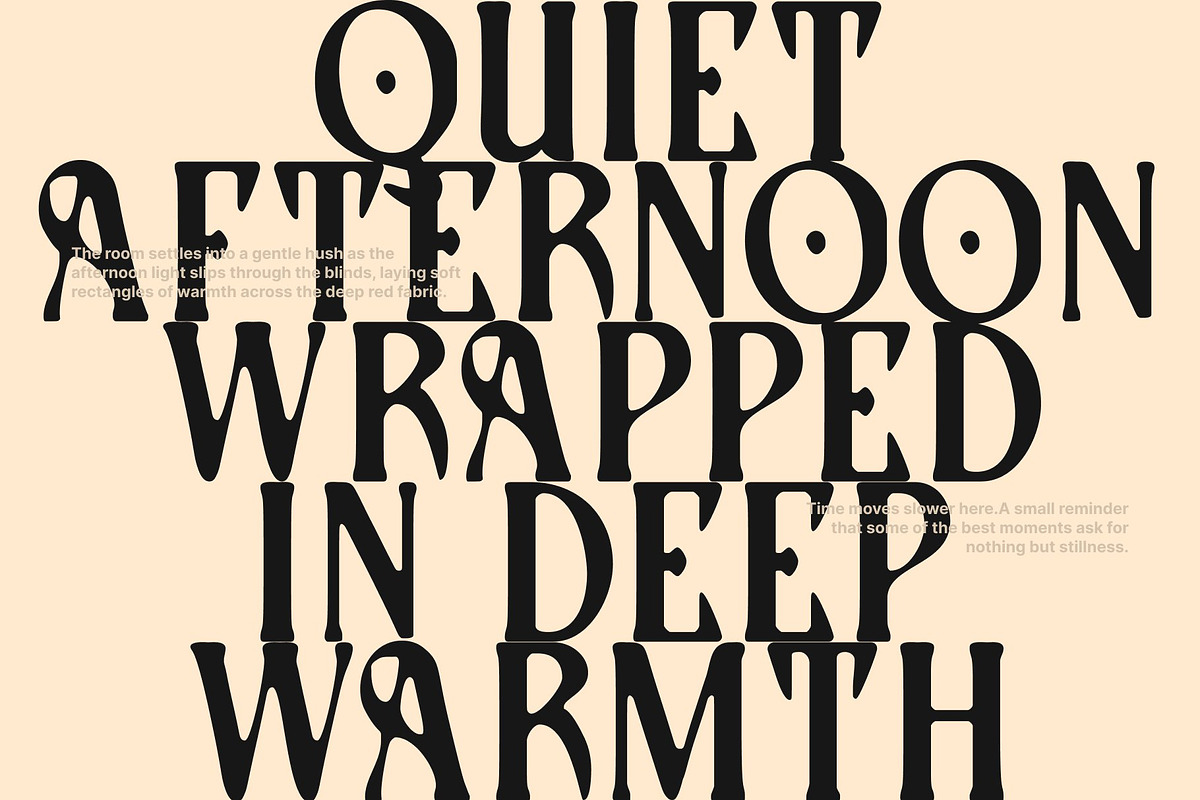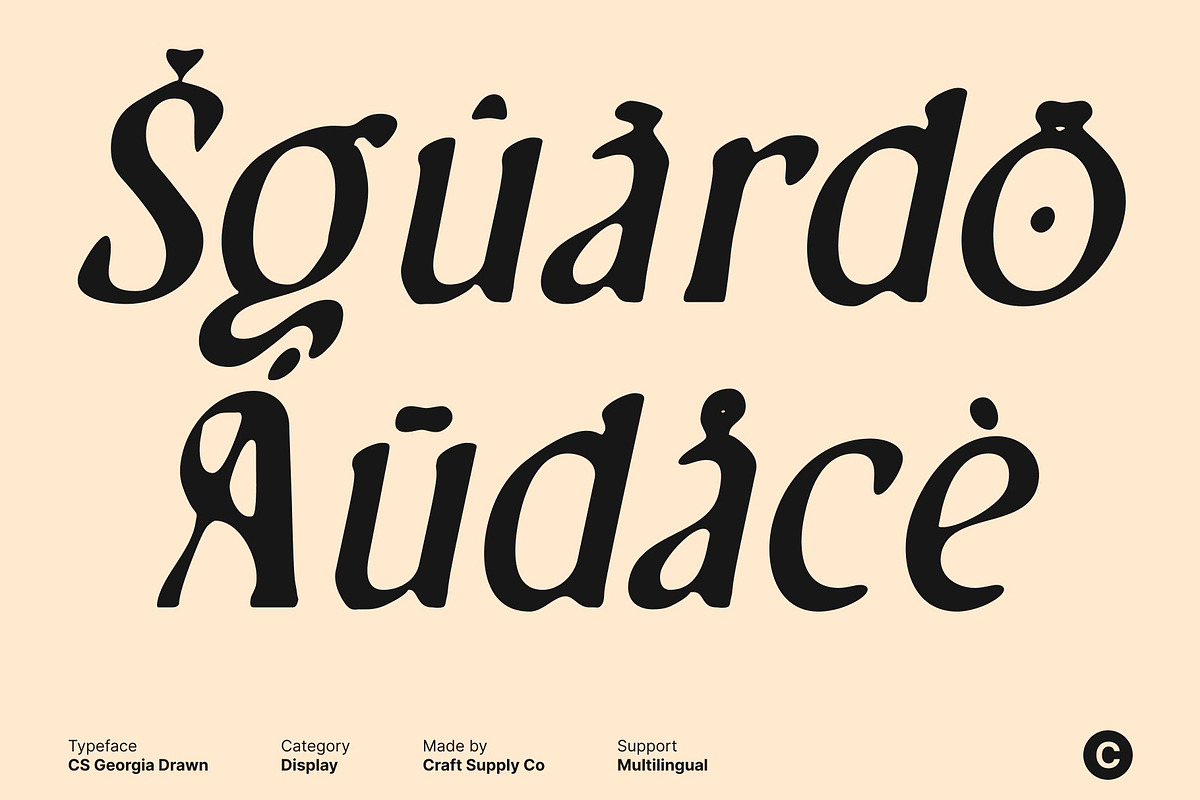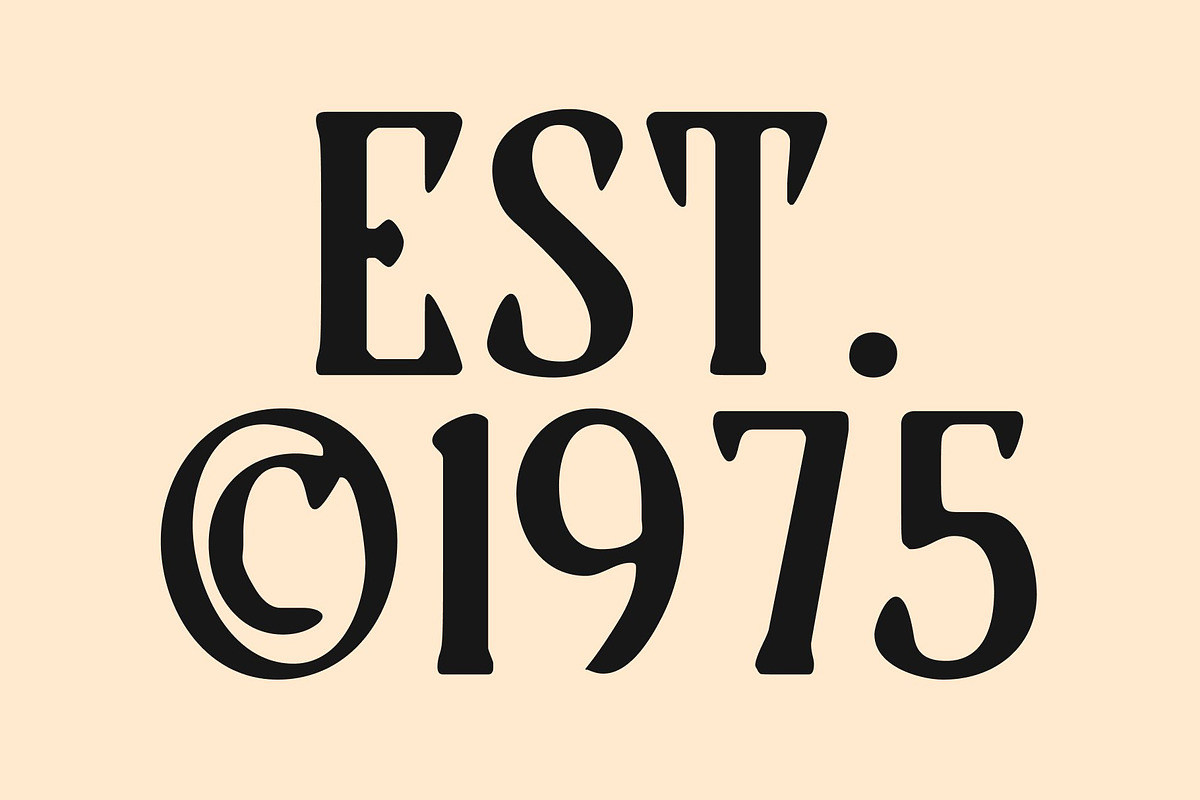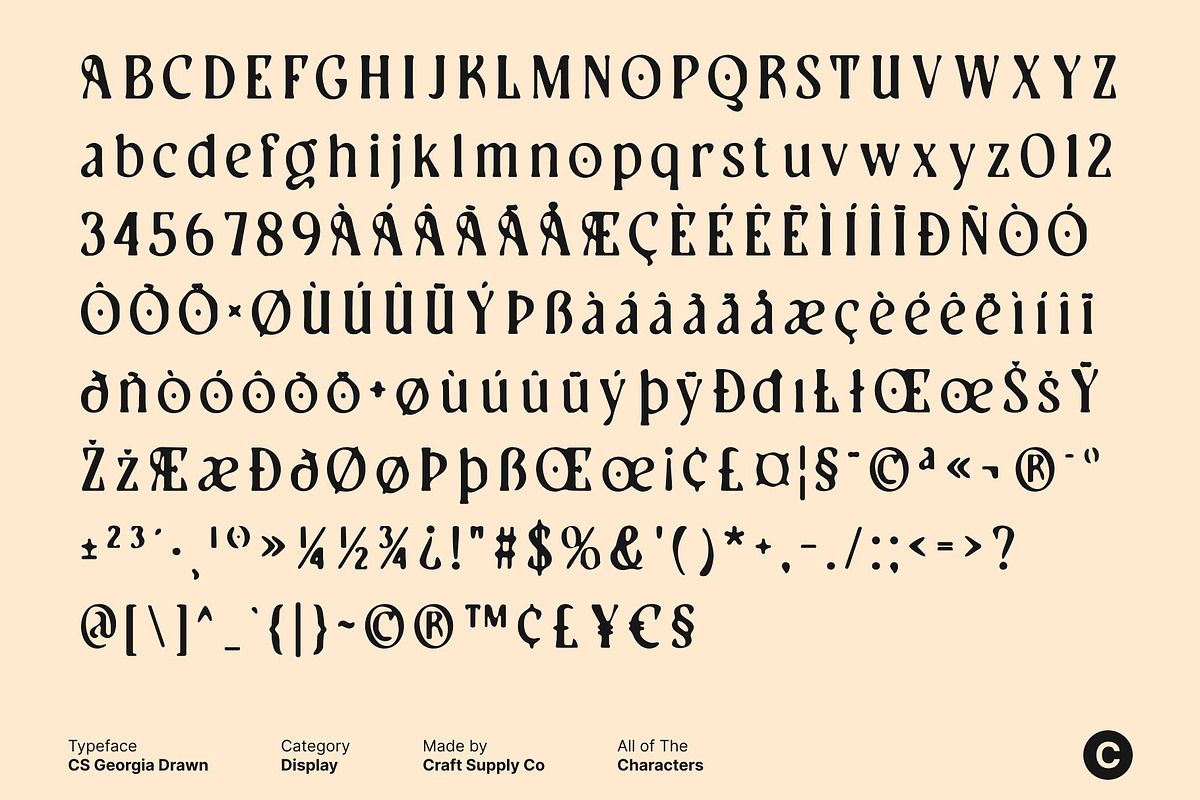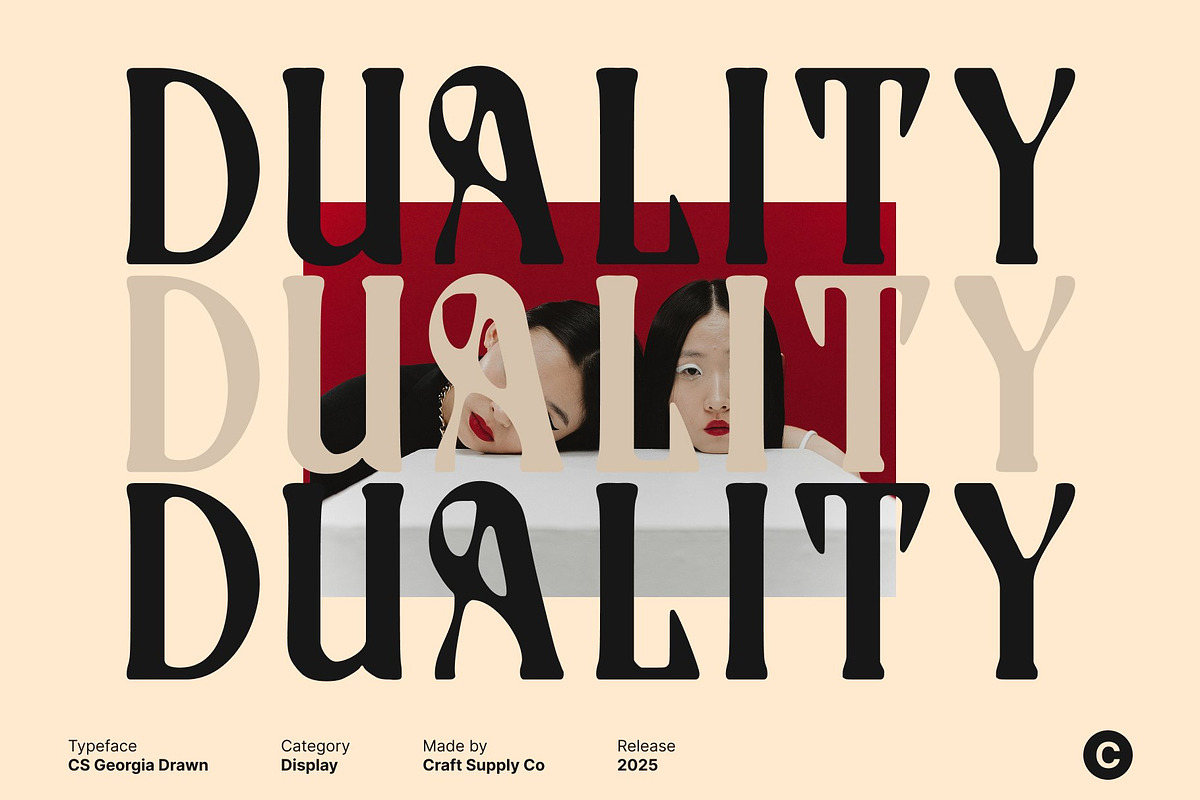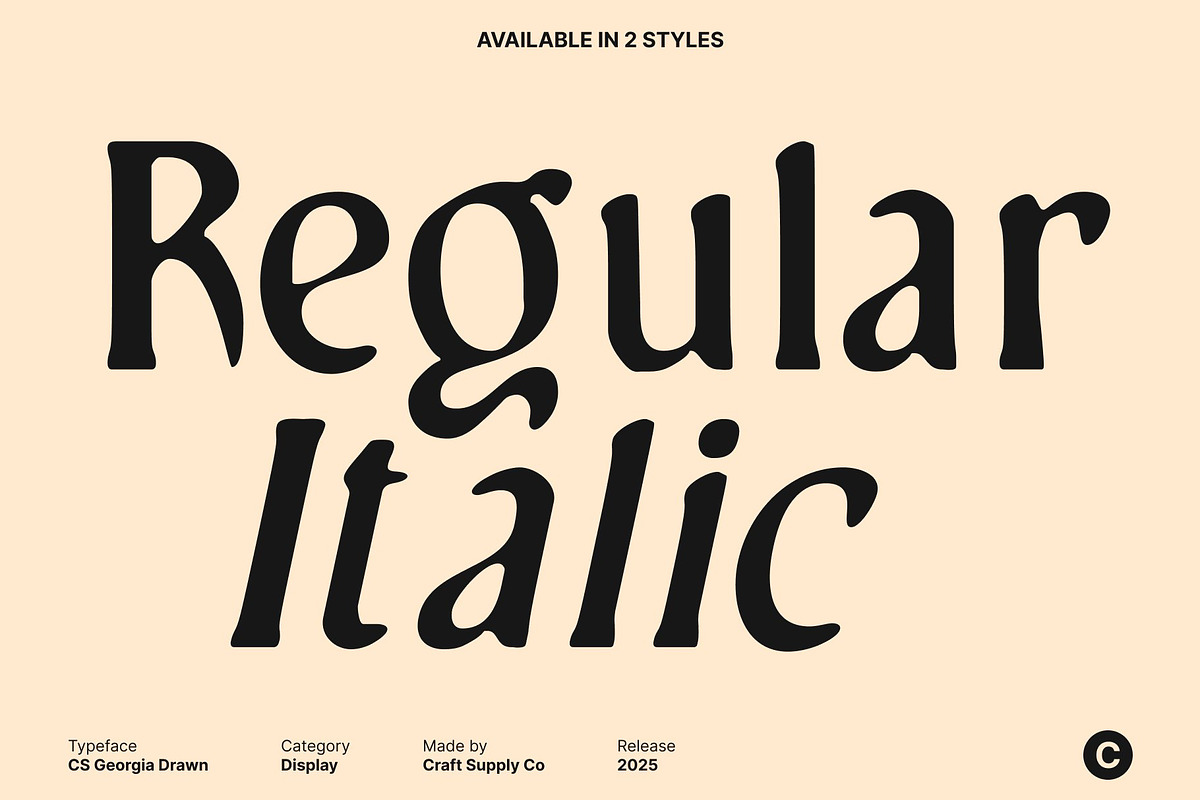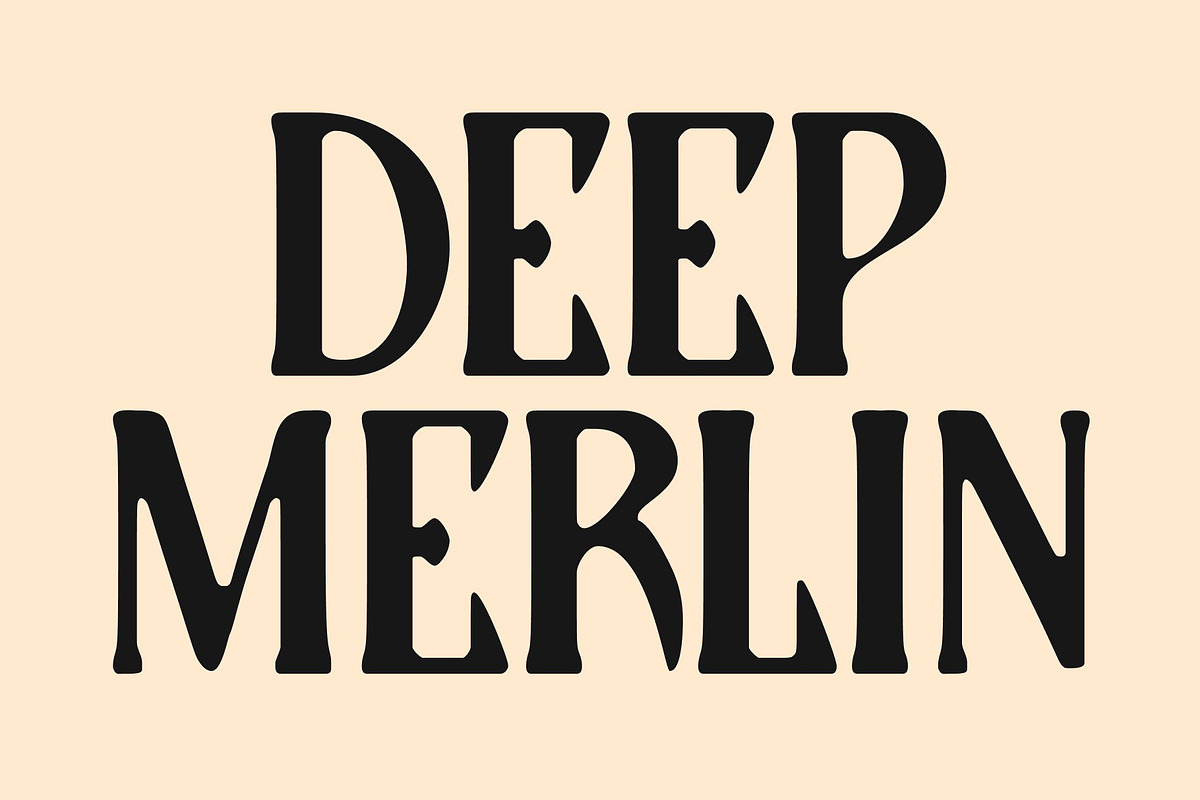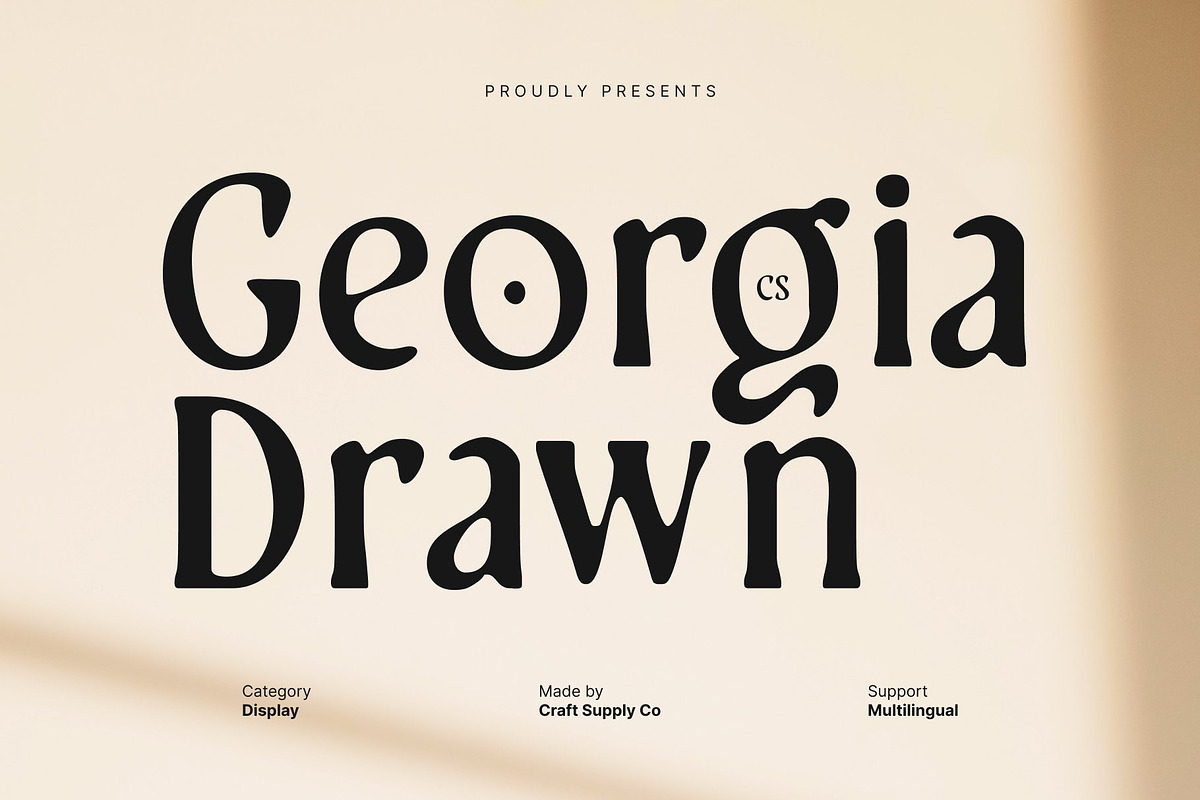
CS Georgia Drawn
CS Georgia Drawn – Serif Font with Hand Drawn Refinement
Refined Curves with Sophisticated Presence This is an elegant serif font designed to convey sophistication and high-end style. Its refined curves and balanced proportions give each character a polished, graceful appearance, making it perfect for projects that require a sense of luxury and timeless elegance. The font’s elegant structure ensures readability while exuding class and refinement.
Artistic Drawn Texture for Unique Character The hand-drawn effect adds subtle texture and individuality to this font. Each letter carries delicate artistic details that introduce a handcrafted feel, softening the formal structure and giving the font a unique personality. This combination of elegance and artistry makes every word feel both stylish and distinctive.
Perfect for Luxury Design, Editorials, and Branding This font excels in high-end design contexts, including luxury branding, magazine layouts, packaging, invitations, and editorial projects. Its elegant serif forms paired with the drawn texture create a sophisticated visual impact, ideal for designers who want to combine professionalism with artistic flair.
A Typeface That Balances Elegance and Artistry This font is designed for projects that demand refinement and character. Its graceful serif structure provides timeless sophistication, while the drawn texture adds uniqueness and creative expression. Use this font to elevate your designs with a font that delivers elegance, personality, and high-end aesthetic appeal.